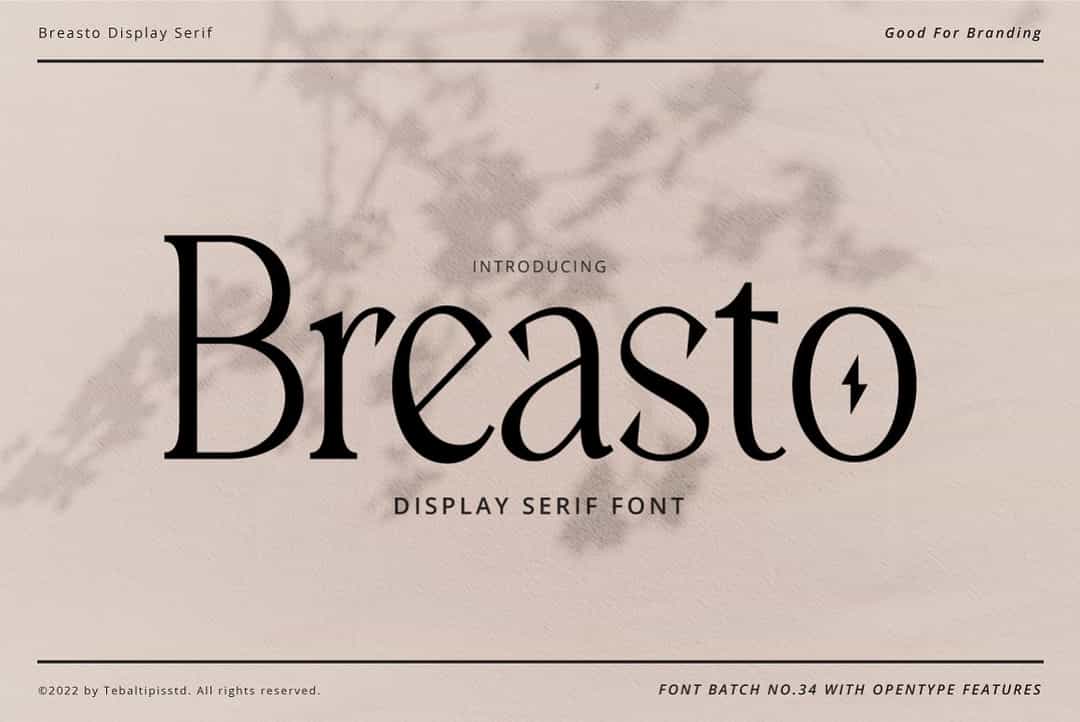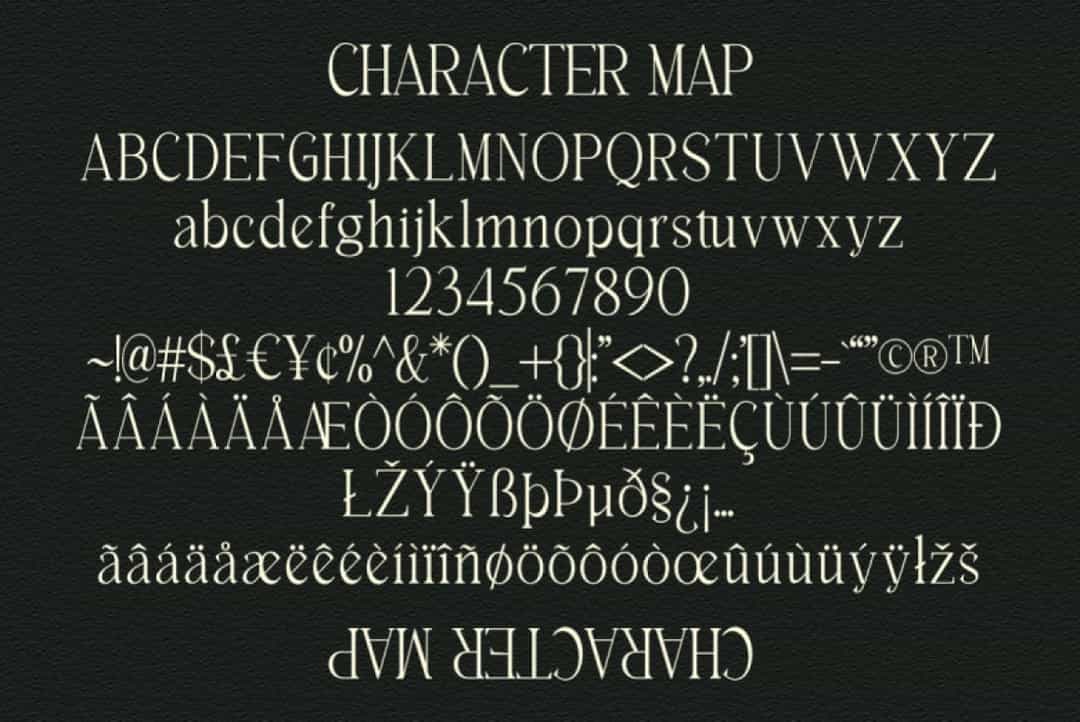
Breasto is an eye-catching display Serif font. Boasting modern and retro styles, its wide array of ligatures and alternatives makes Breasto an excellent choice for creating logos, quotes, posts and blog posts as well as branding projects, magazine images, wedding invitations and more.